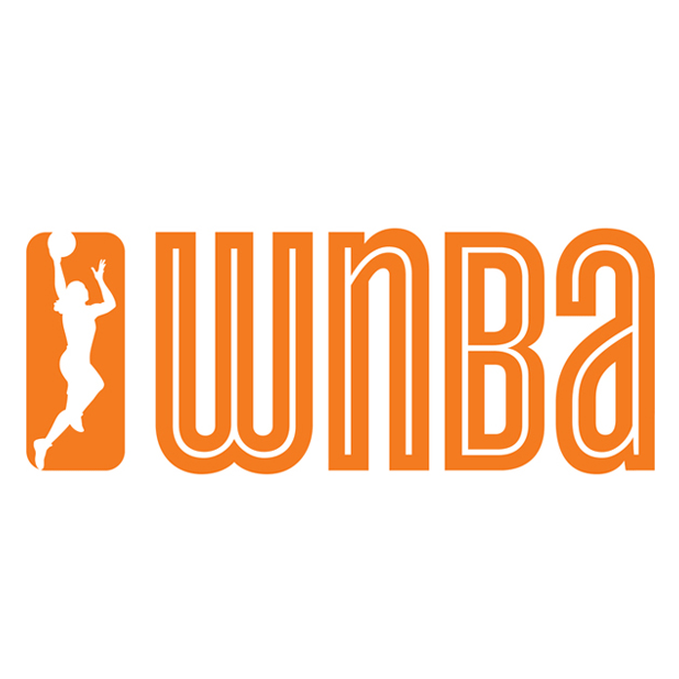
WNBA Logo Font
Fonts in UseThe Women’s National Basketball Association (WNBA) is a professional basketball league in the United States, featuring talented female athletes who showcase their skills and compete for the championship title each season.
The WNBA logo features the compact inline sans serif font called Cyclone, designed by Hoefler & Co. You can find more details about the font here.